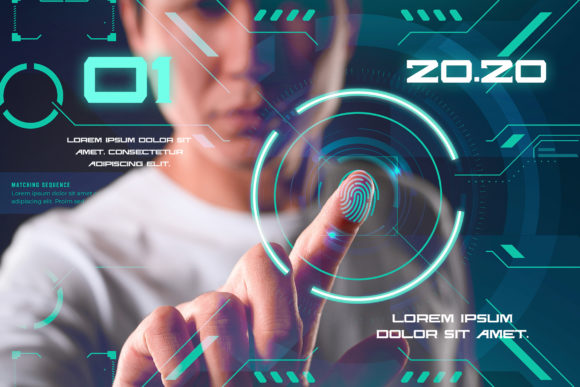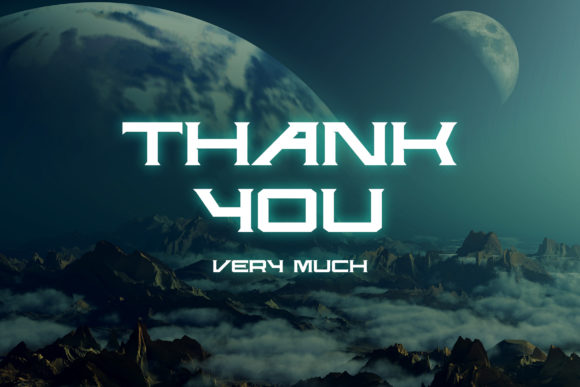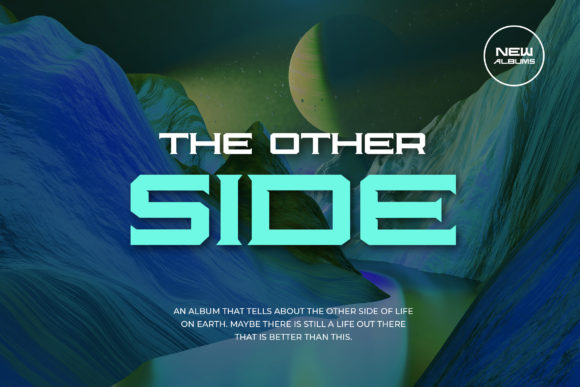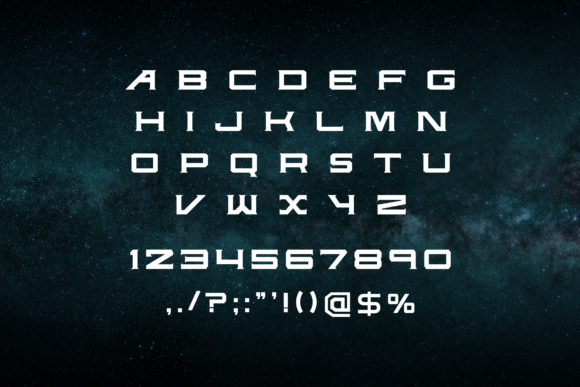
Introduction to Rigel Canopus Font Font
Fonts play a crucial role in design, and the Rigel Canopus Font font is a typeface that brings both character and versatility to any project. Whether you’re working on a branding project, a website, or a print design, the Rigel Canopus Font font offers a unique style that can elevate your work.
Rigel Canopus is a cool looking, futuristic vintage display font.
Bold and thick lettered, this font will instantly make each of your designs stand out .
Key Features of Rigel Canopus Font Font
• ✅ High-quality typeface designed for professional use
• ✅ Includes a wide range of glyphs and characters
• ✅ Ideal for logos, branding, websites, and print
Why Choose Rigel Canopus Font Font?
The Rigel Canopus Font font is more than just a typeface – it’s a design tool that helps you communicate your message with style and clarity. Its unique character set and versatile design make it suitable for a wide range of applications, from elegant invitations to bold headlines.
With its carefully crafted letterforms and balanced proportions, the Rigel Canopus Font font ensures readability and visual appeal across all mediums.
What makes Rigel Canopus Font font special?
The Rigel Canopus Font font stands out with its unique design, exceptional readability, and versatility across various design applications.